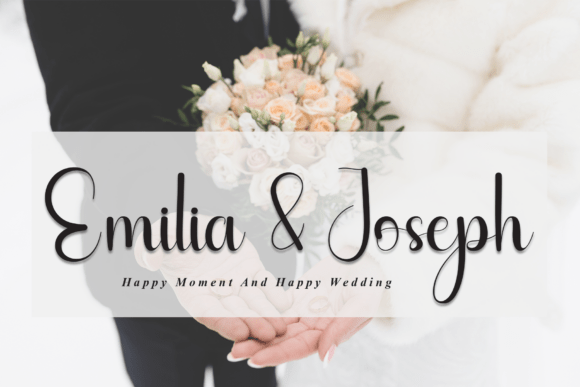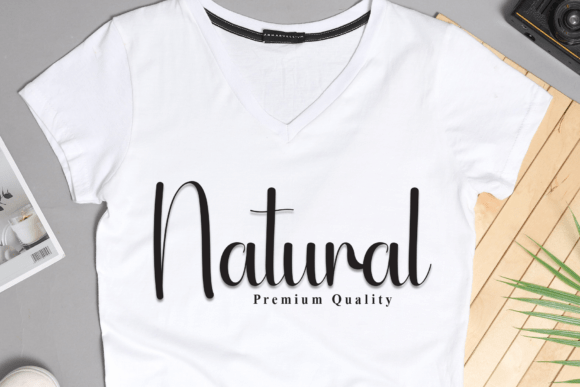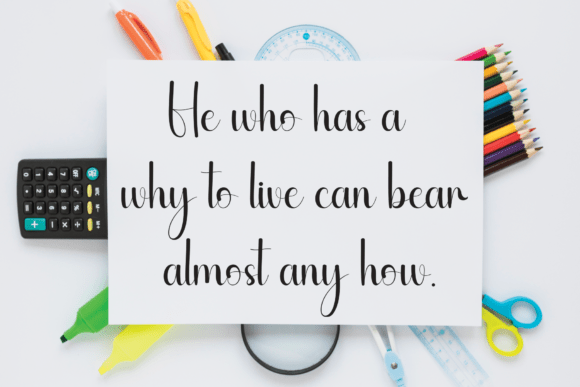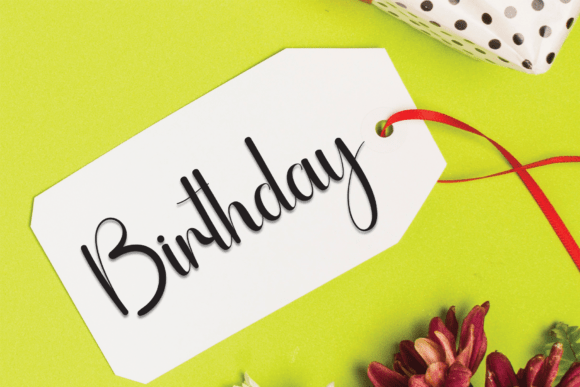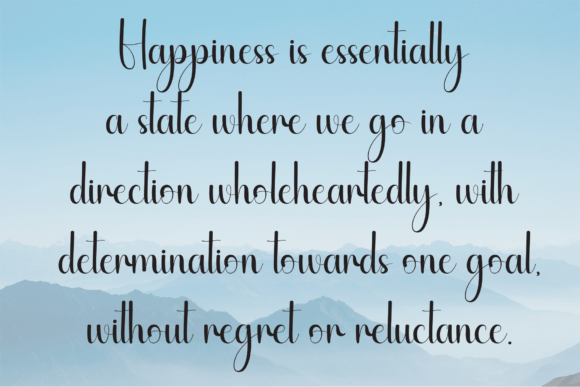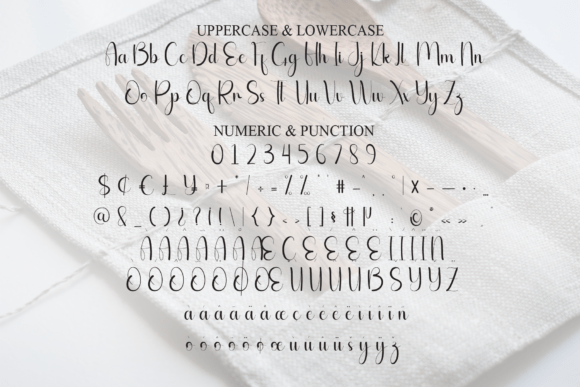
Sweet and Friendly: The Handmade Font that Brings Whimsy to Life
Are you tired of using the same old fonts in your designs? Do you want to add a touch of personality and whimsy to your work? Look no further than the Sweet and Friendly handmade font, a charmingly delightful display font that’s sure to capture the hearts of designers and crafters alike.
The Perfect Embodiment of Whimsical Whimsy
Sweet and Friendly is more than just a font – it’s an experience. With its endearing, handwritten aesthetic, this font brings a sense of playfulness and enchantment to any design project. Whether you’re working on a wedding invitation, greeting card, or any other design endeavor, Sweet and Friendly is the perfect choice for infusing a touch of fun and personality into your work.
What Makes Sweet and Friendly So Special?
So, what sets Sweet and Friendly apart from other fonts? Here are just a few reasons why this handmade font is a cut above the rest:
- Unique Character: Sweet and Friendly boasts a distinctive, one-of-a-kind character that’s sure to make your designs stand out from the crowd.
- Whimsical Aesthetic: With its playful, handwritten style, this font is perfect for adding a touch of whimsy and enchantment to your designs.
- Versatility: Sweet and Friendly is incredibly versatile, making it suitable for a wide range of design projects, from wedding invitations and greeting cards to branding and packaging.
- Ease of Use: This font is incredibly easy to use, even for those with limited design experience.
Breathe Life into Your Design with Sweet and Friendly
When it comes to design, there’s nothing quite like the power of a well-chosen font to bring your work to life. With Sweet and Friendly, you can add a touch of personality and whimsy to even the most mundane design projects. Imagine:
- Creating a wedding invitation that sets the tone for a playful, romantic celebration.
- Designing a greeting card that feels like a warm, handwritten hug.
- Developing a brand identity that stands out from the crowd with a unique, eye-catching font.
Why Designers and Crafters Love Sweet and Friendly
So, why do designers and crafters love Sweet and Friendly? Here are just a few reasons:
- Easy to Read: Despite its playful aesthetic, Sweet and Friendly is incredibly easy to read, making it perfect for designs where clarity is key.
- Customizable: With its extensive character set and multiple language support, Sweet and Friendly can be tailored to suit a wide range of design needs.
- Timeless Appeal: Unlike trendy fonts that quickly go out of style, Sweet and Friendly has a timeless appeal that’s sure to endure.
Get Ready to Fall in Love with Sweet and Friendly
If you’re looking for a font that will add a touch of whimsy and enchantment to your designs, look no further than Sweet and Friendly. With its unique character, playful aesthetic, and versatility, this handmade font is sure to capture your heart and inspire your creativity.
In conclusion, Sweet and Friendly is more than just a font – it’s a design experience. With its delightful, handwritten aesthetic and endless possibilities for customization, this font is perfect for designers and crafters who want to add a touch of personality and whimsy to their work. So why wait? Discover the delightful allure of Sweet and Friendly today and breathe life into your designs with this charming, handmade font.